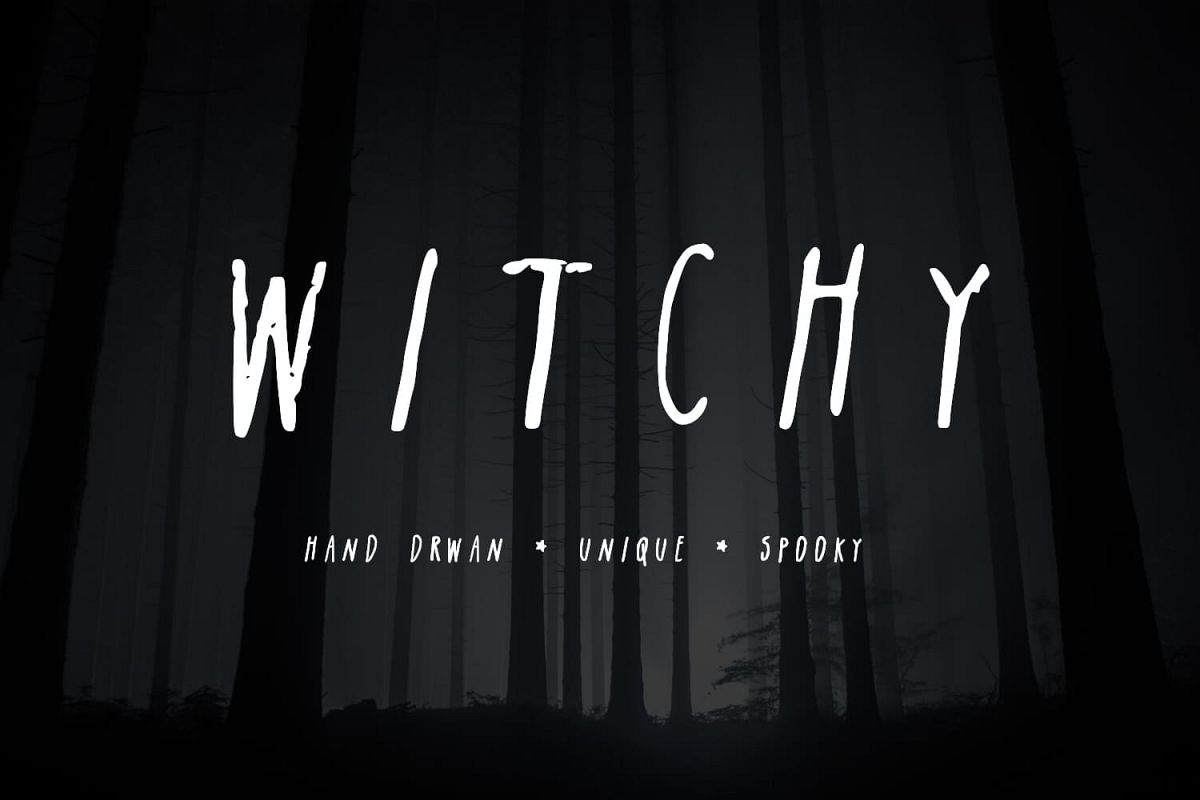
Sisters of the Night, haunted house enthusiasts, Ouija board lovers, Halloween supporters, members of a local coven: This is the font for you!An originally SPOOooOOOooOKY font perfect for cards, logos, website design, blogs, posters, print projects, and hauntings!